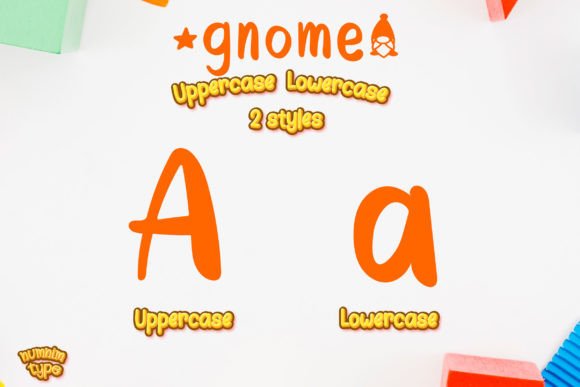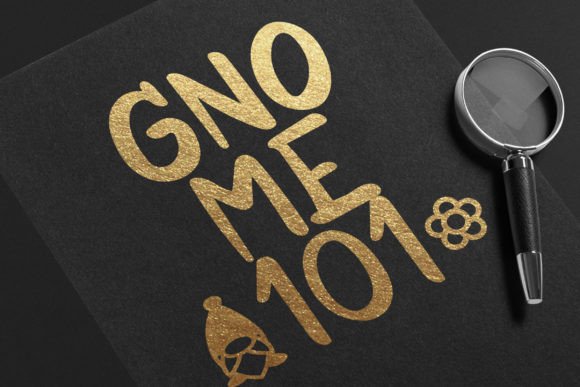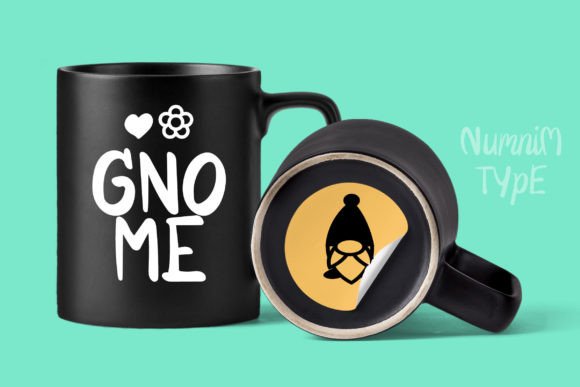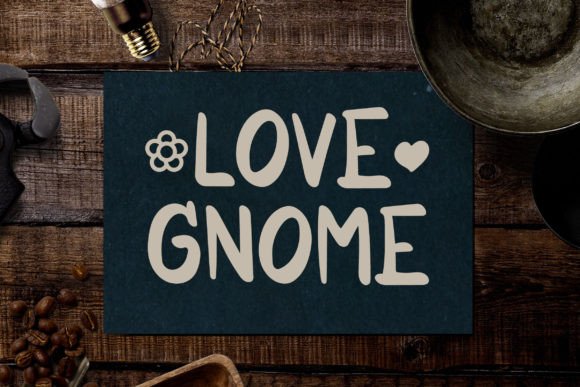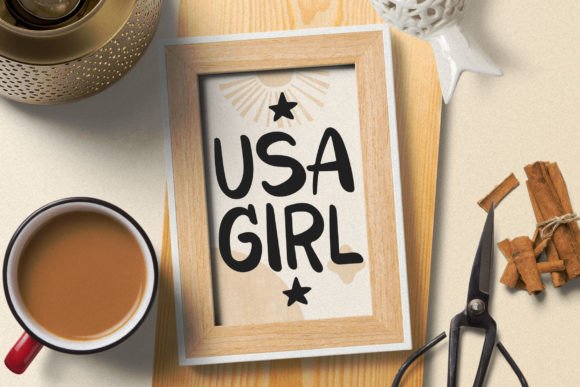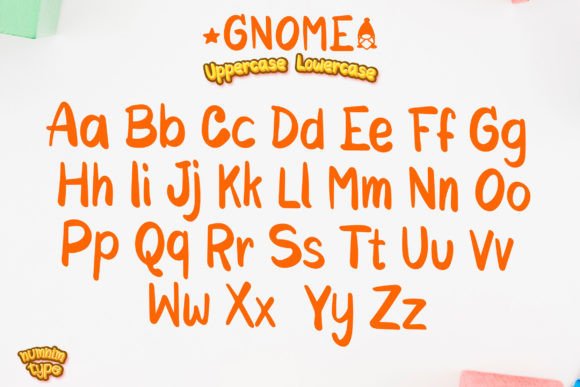
Gnome Font: The Perfect Handwritten Font for Your Creative Projects
Are you a designer or crafter looking for a unique and playful font to add a personal touch to your projects? Look no further than the Gnome Font! This cute and uniquely crafted handwritten font is perfect for a variety of creative endeavors, from stickers and mugs to t-shirts, ornaments, and summer event cards.
What Makes Gnome Font So Special?
Gnome Font is a one-of-a-kind handwritten font that stands out from the crowd. Its fun and playful characters are carefully crafted to add a touch of whimsy and personality to any project. Whether you’re creating something for a client or for your own personal use, Gnome Font is sure to make your design stand out.
The Perfect Font for Crafters and Designers
Gnome Font is a versatile font that can be used for a wide range of creative projects. Here are just a few ideas to get you started:
- Stickers: Add a personal touch to your stickers with Gnome Font’s playful characters. Perfect for labeling gifts, creating party favors, or making custom stickers for your business.
- Mugs: Make your mugs stand out with a fun and quirky design featuring Gnome Font. Perfect for gifts, promotional products, or personal use.
- T-Shirts: Create custom t-shirts for your business, event, or personal use with Gnome Font’s unique characters.
- Ornaments: Add a personal touch to your ornaments with Gnome Font’s whimsical characters. Perfect for gifts, decorations, or keepsakes.
- Summer Event Cards: Create custom invitations, thank-you cards, or greeting cards for your summer events with Gnome Font’s playful characters.
Why Choose Gnome Font?
With so many fonts to choose from, why should you choose Gnome Font for your creative projects? Here are just a few reasons:
- Unique and playful: Gnome Font’s fun and quirky characters will add a personal touch to any project.
- Versatile: Use Gnome Font for a wide range of creative projects, from stickers and mugs to t-shirts and ornaments.
- High-quality: Gnome Font is carefully crafted to ensure high-quality results in any design.